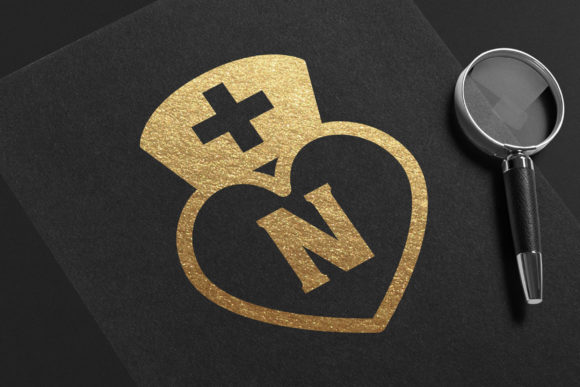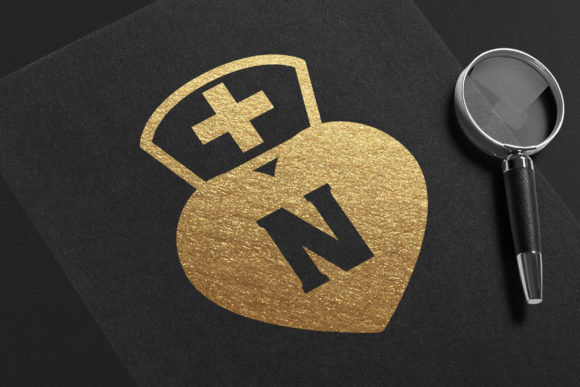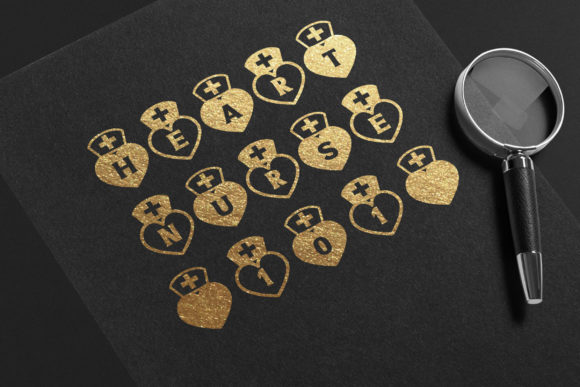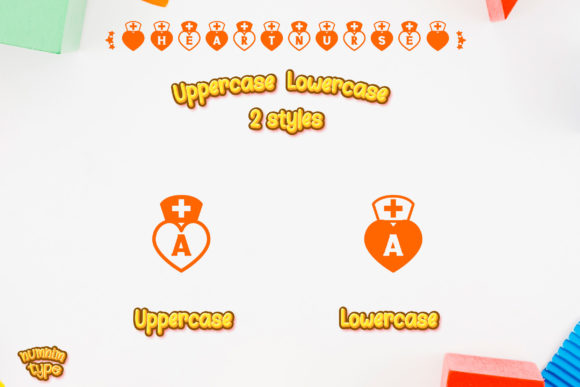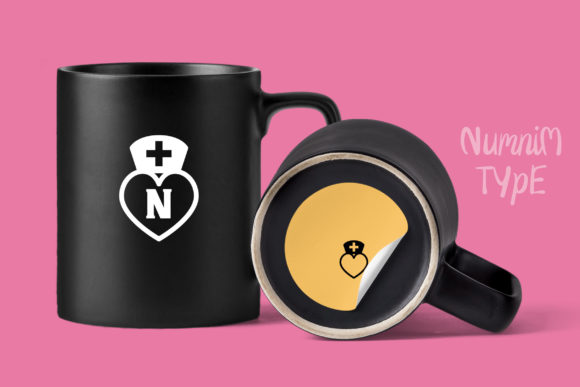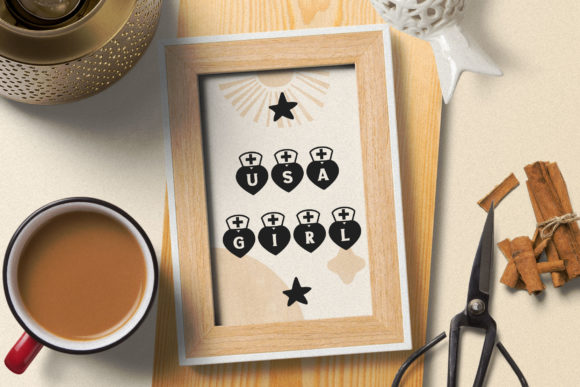
Introduction to Heart Nurse Font Font
Fonts play a crucial role in design, and the Heart Nurse Font font is a typeface that brings both character and versatility to any project. Whether you’re working on a branding project, a website, or a print design, the Heart Nurse Font font offers a unique style that can elevate your work.
Heart Nurse is a cool and uniquely crafted decorative font.
Its fun and playful characters make it the perfect font for stickers, mugs, t-shirts, ornaments, Valentineβs Dayβs cards, event invitations, and many more This font is PUA encoded which means you can access all glyphs and swashes with ease.
Key Features of Heart Nurse Font Font
Why Choose Heart Nurse Font Font?
The Heart Nurse Font font is more than just a typeface β it’s a design tool that helps you communicate your message with style and clarity. Its unique character set and versatile design make it suitable for a wide range of applications, from elegant invitations to bold headlines.
With its carefully crafted letterforms and balanced proportions, the Heart Nurse Font font ensures readability and visual appeal across all mediums.
What makes Heart Nurse Font font special?
The Heart Nurse Font font stands out with its unique design, exceptional readability, and versatility across various design applications.